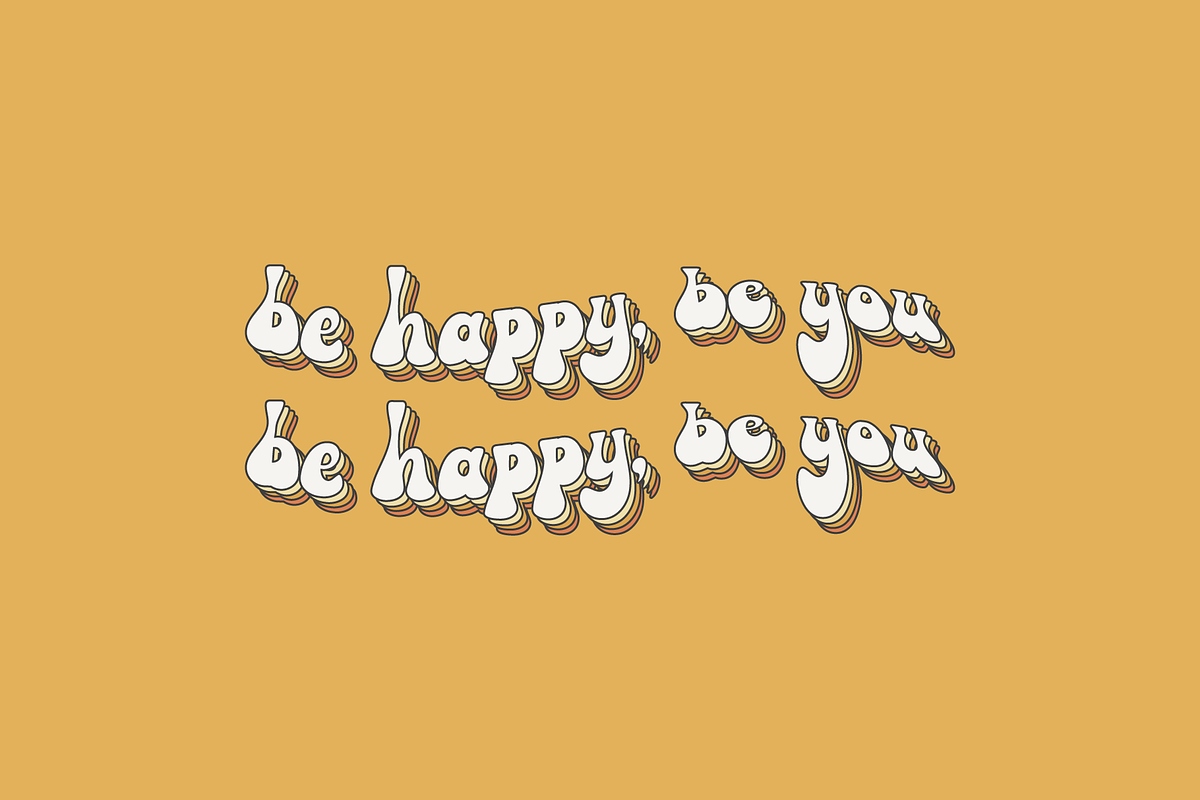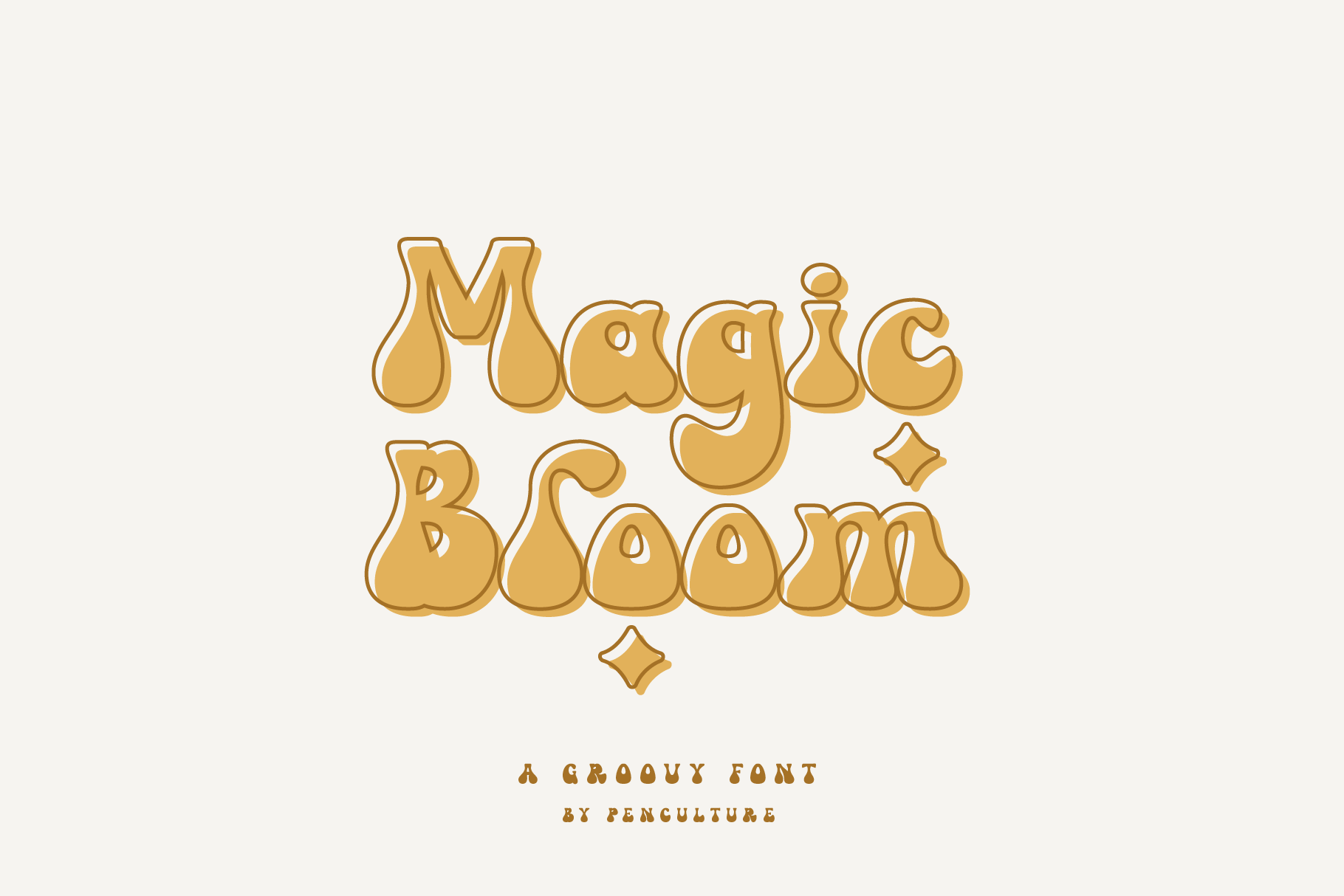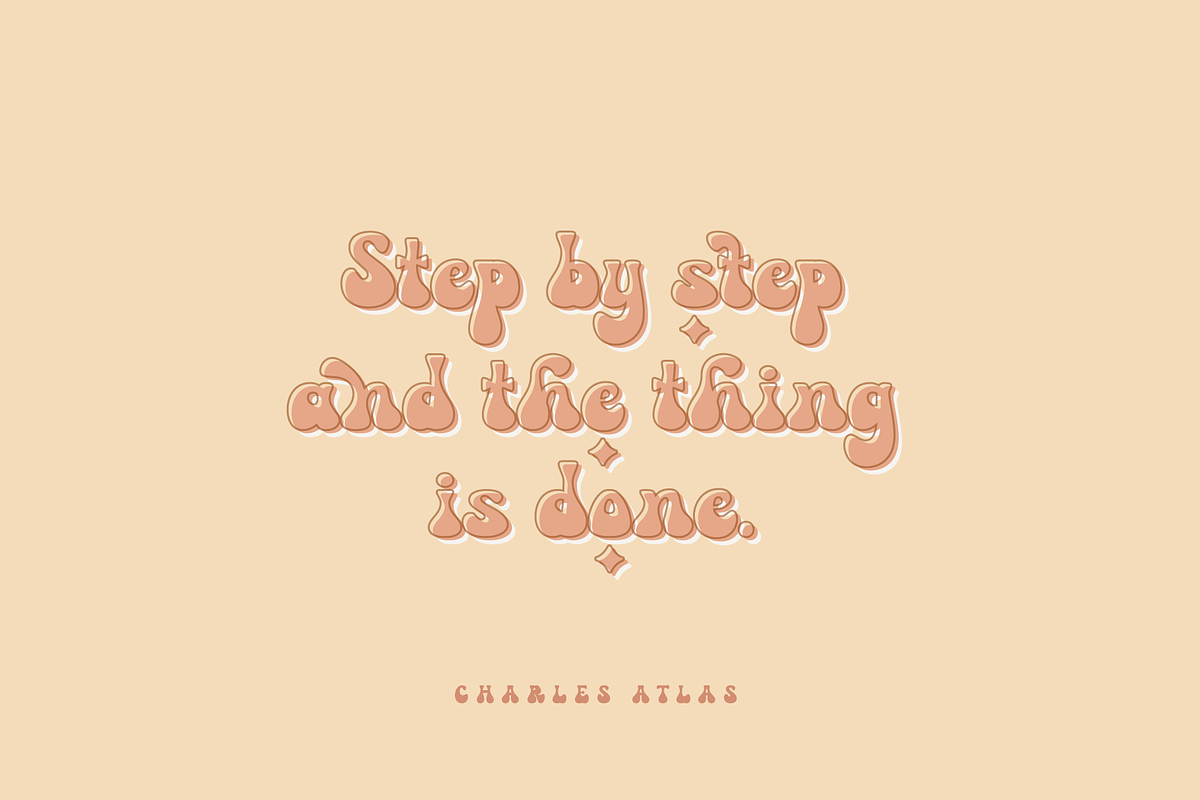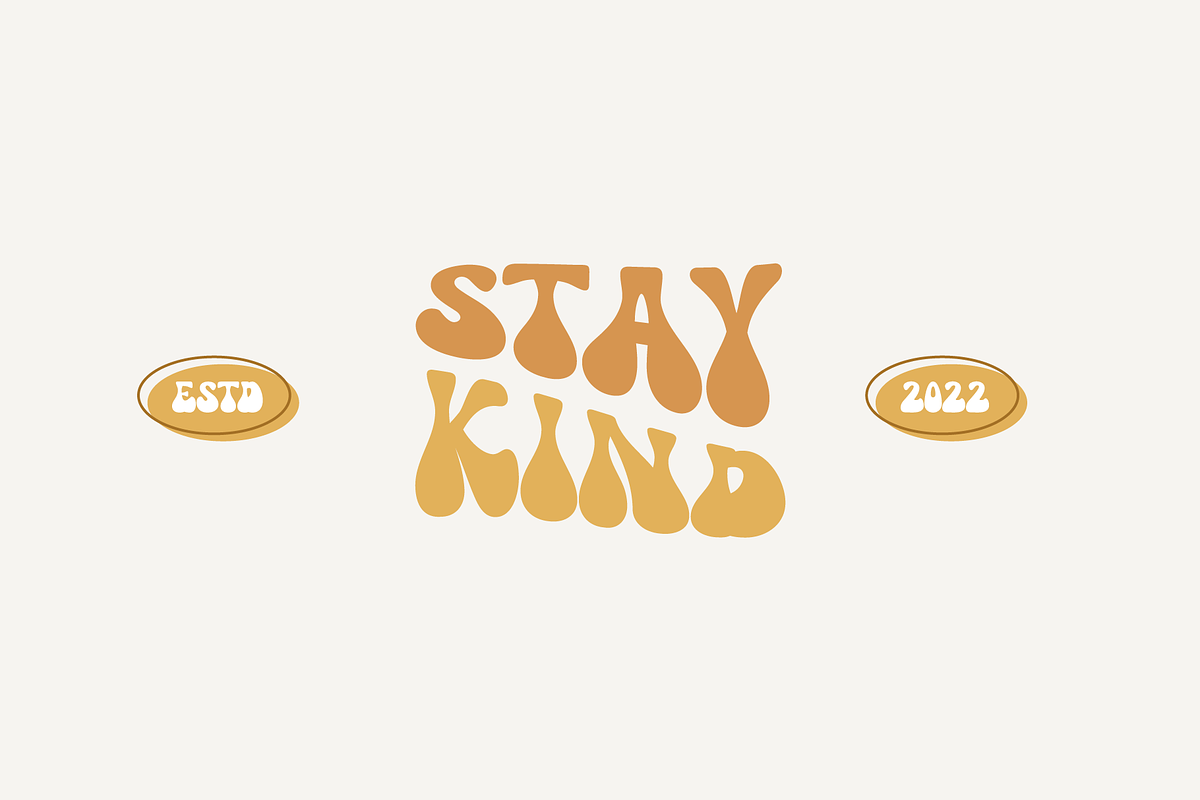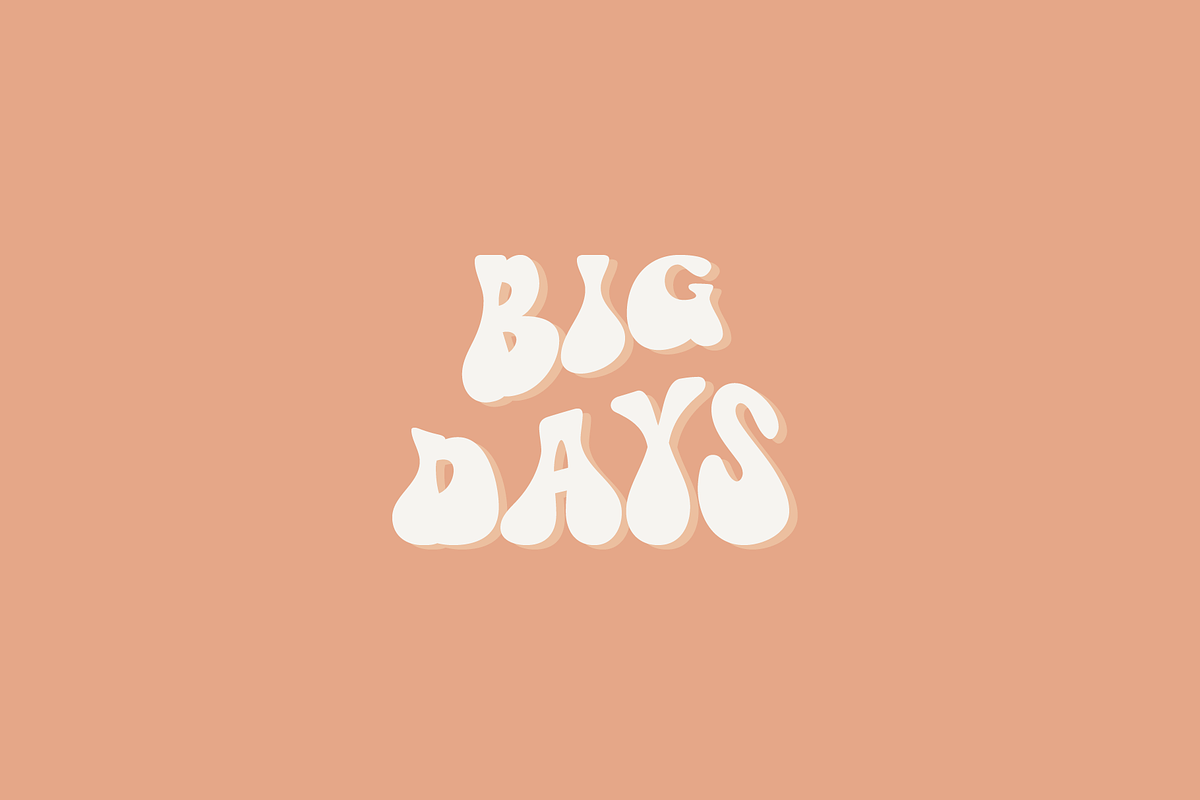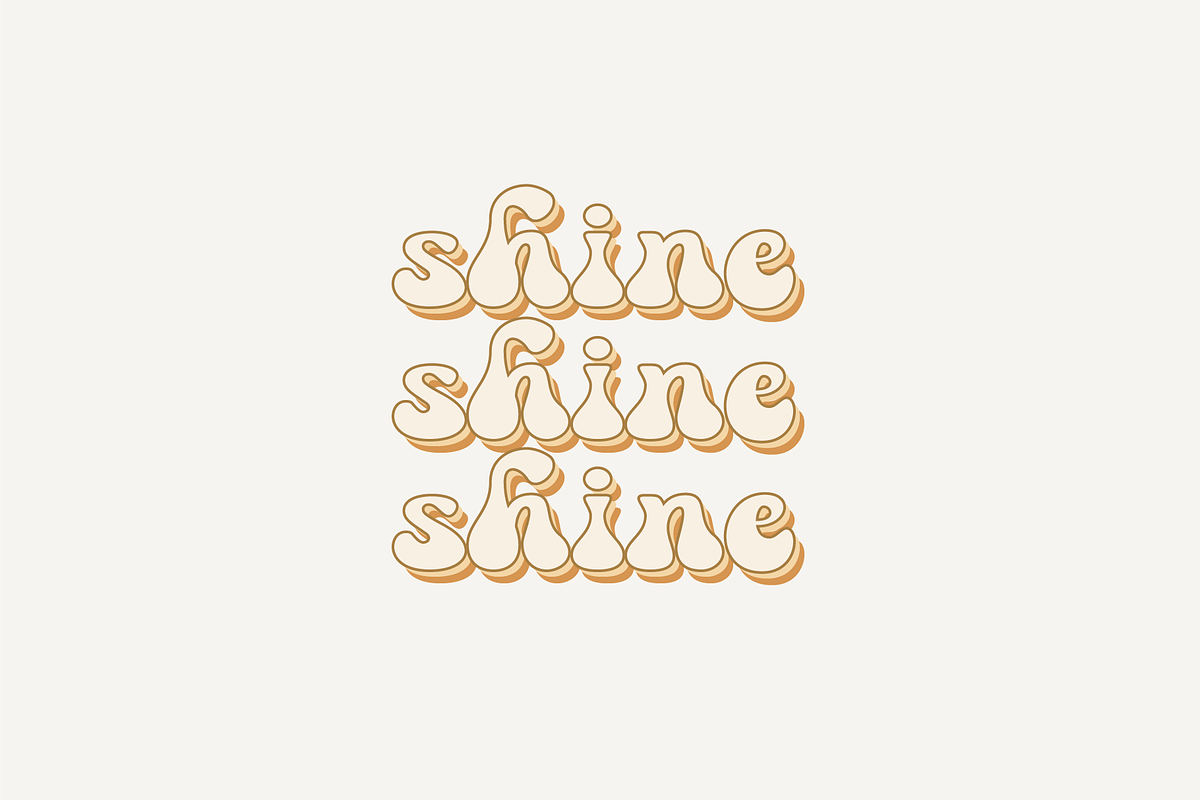
Magic Bloom - A Groovy Font
Proudly present our newest and lovely font in 2023 called Magic Bloom.
This is a lovely and playful groovy font where you can feel it in every curve of the letters. This font is equipped with full uppercase and lowercase, number and punctuation, alternate and ligature.
This font works well in both uppercase and lowercase, so you can use and create in a variety of projects